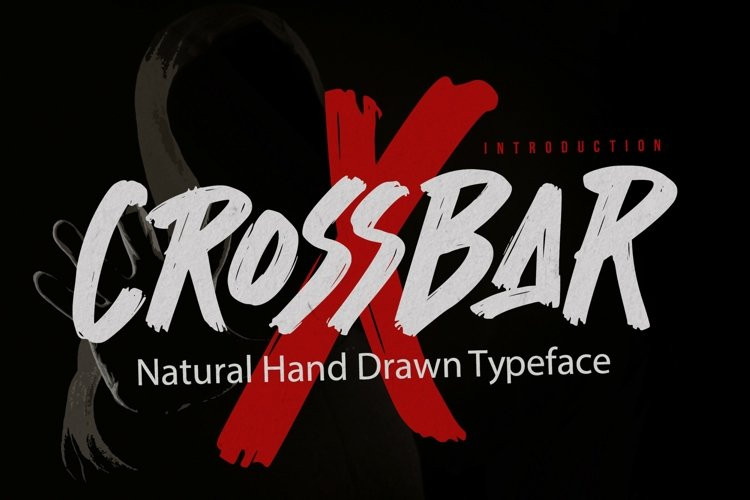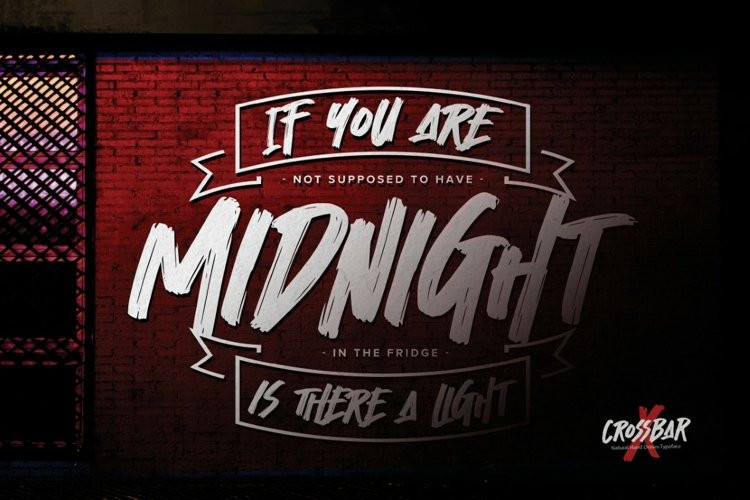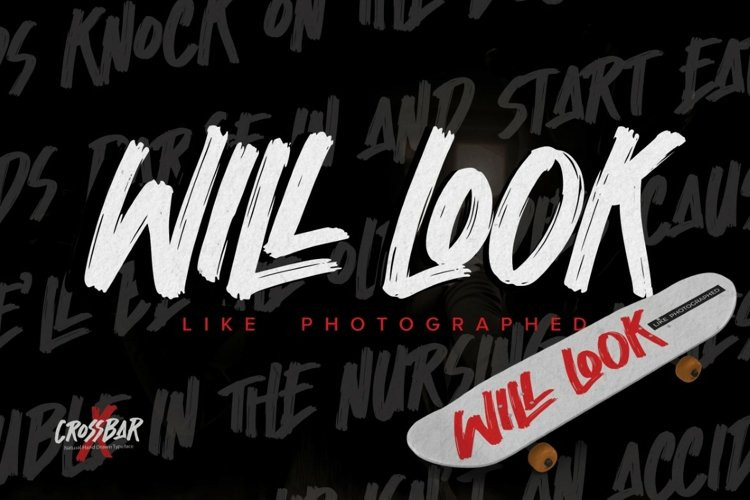
Crossbar Font
Crossbar FontCrossbar – Natural Hand Drawn Typeface
Introducing of our new product that inspired by Street Tagging, graffiti style with a fun theme very good for graffity poster, Hip Hop music, kids poster, flyer, childrenbook, cartoon, comic etc.